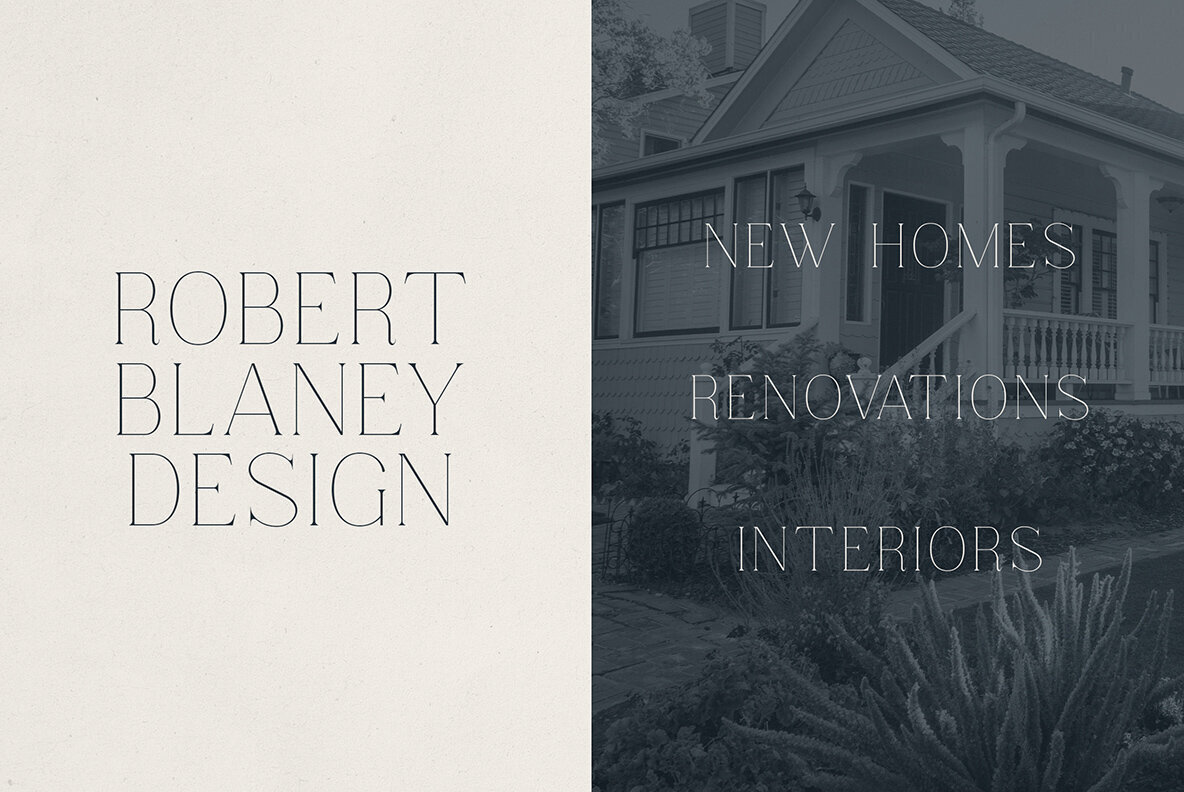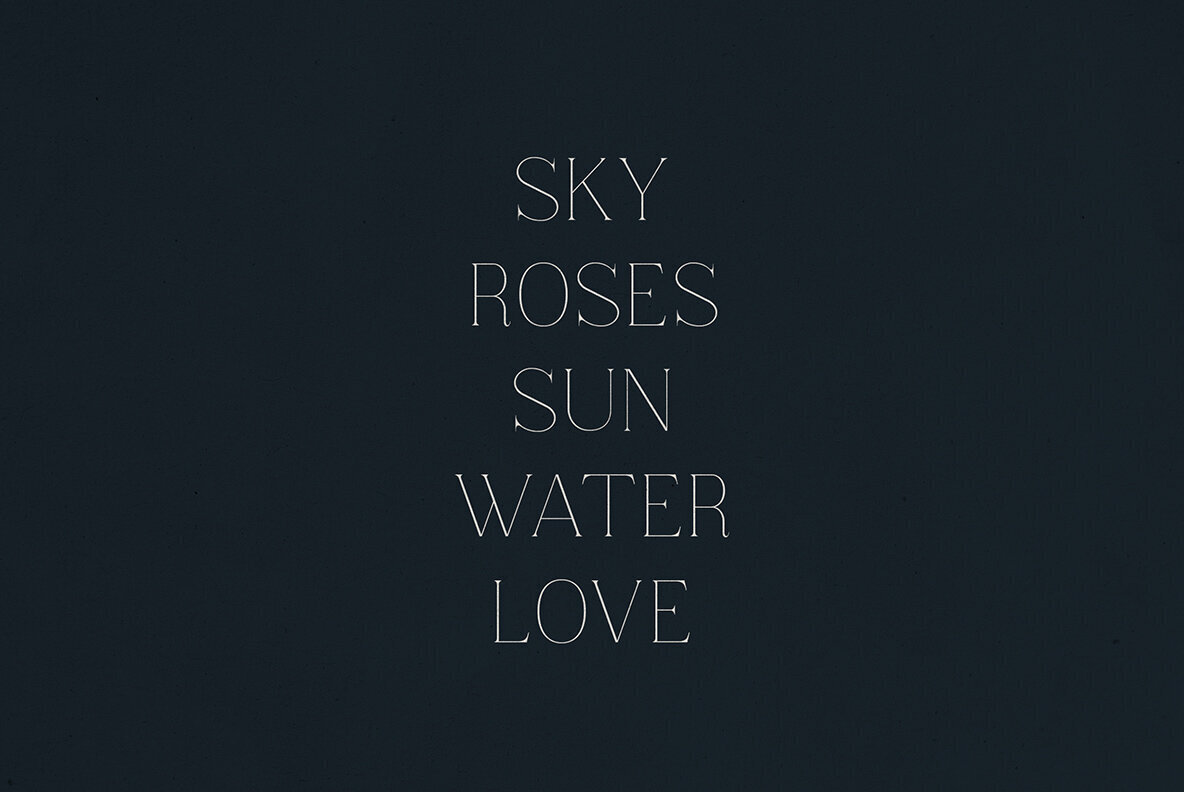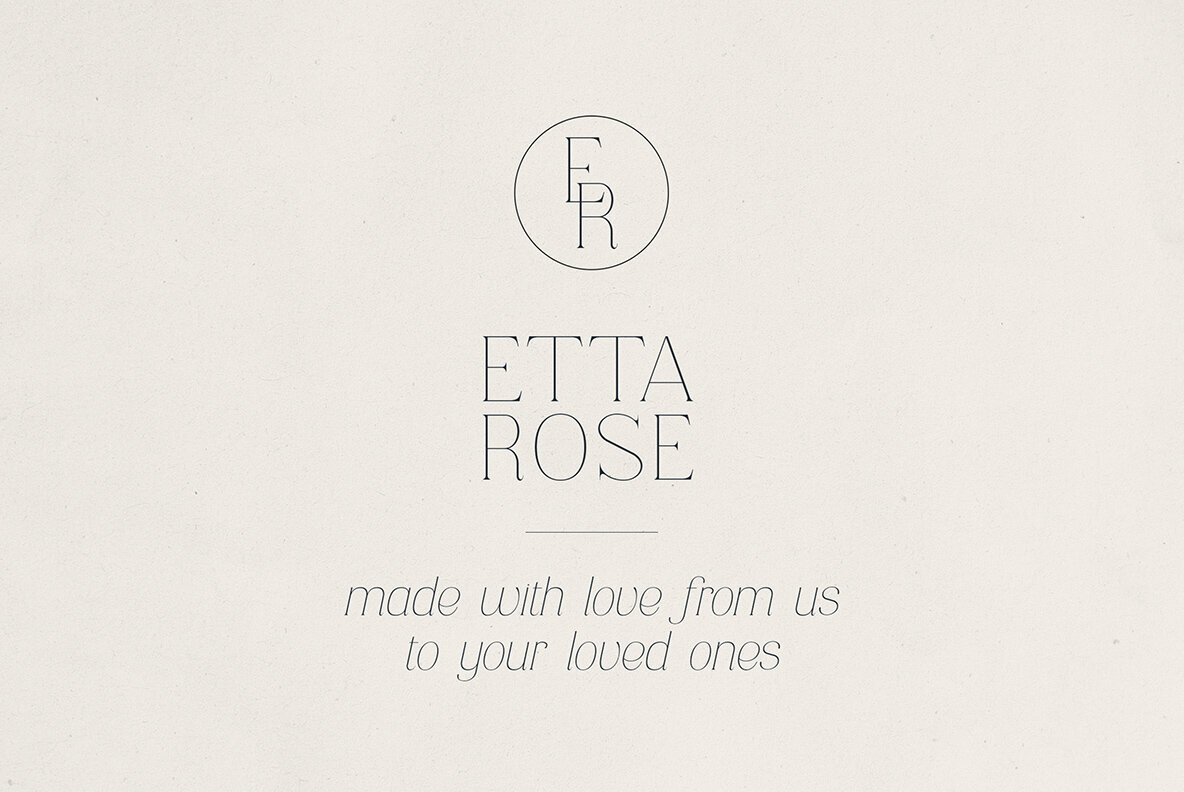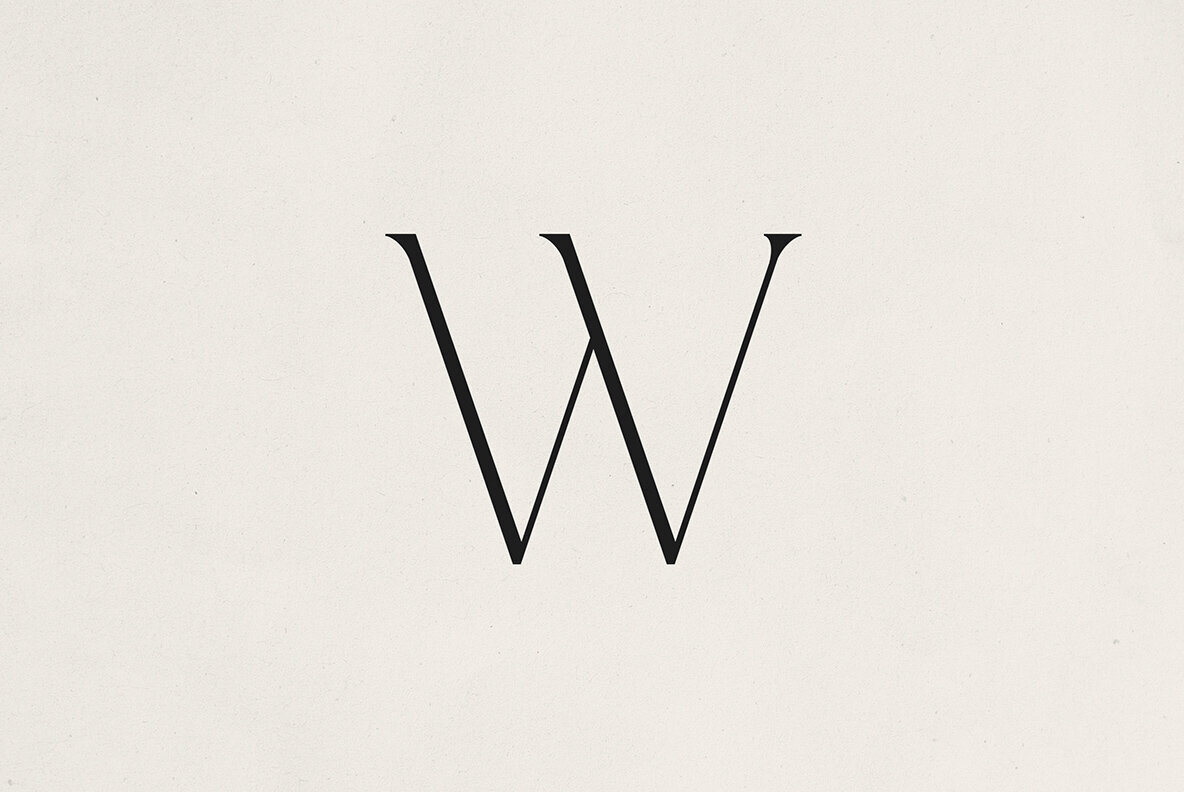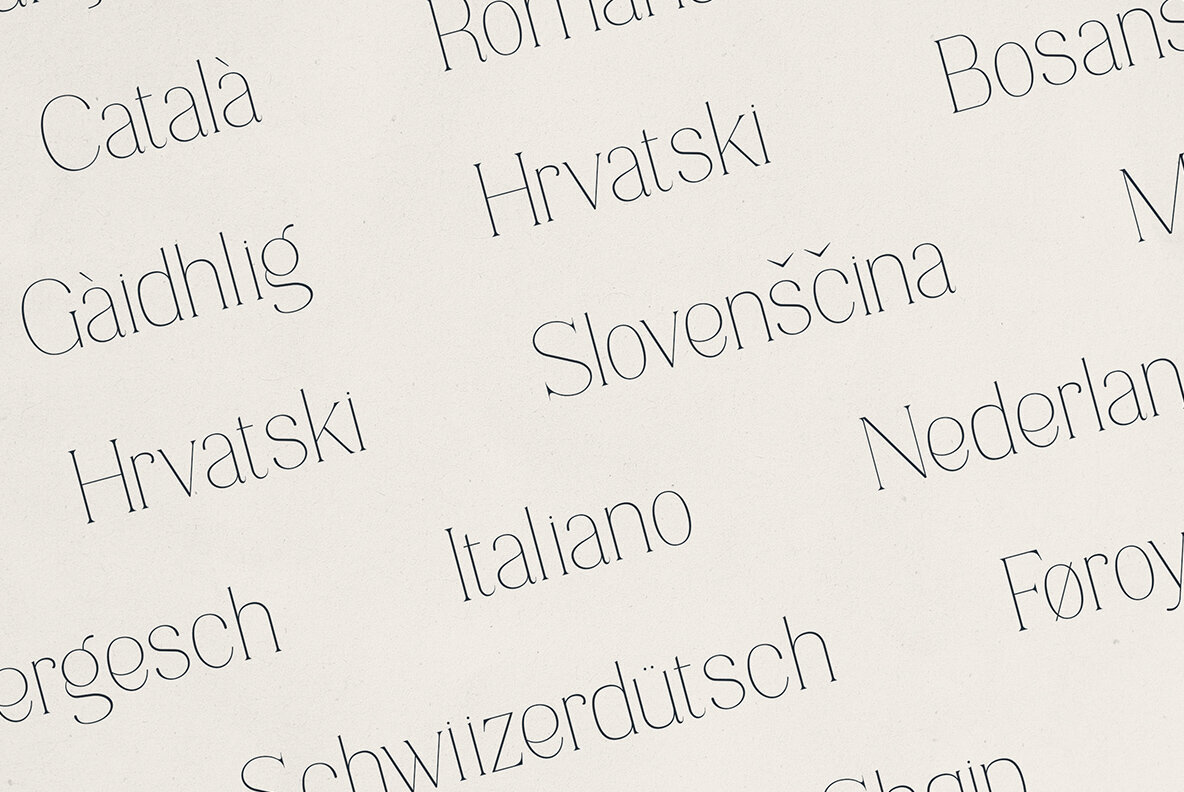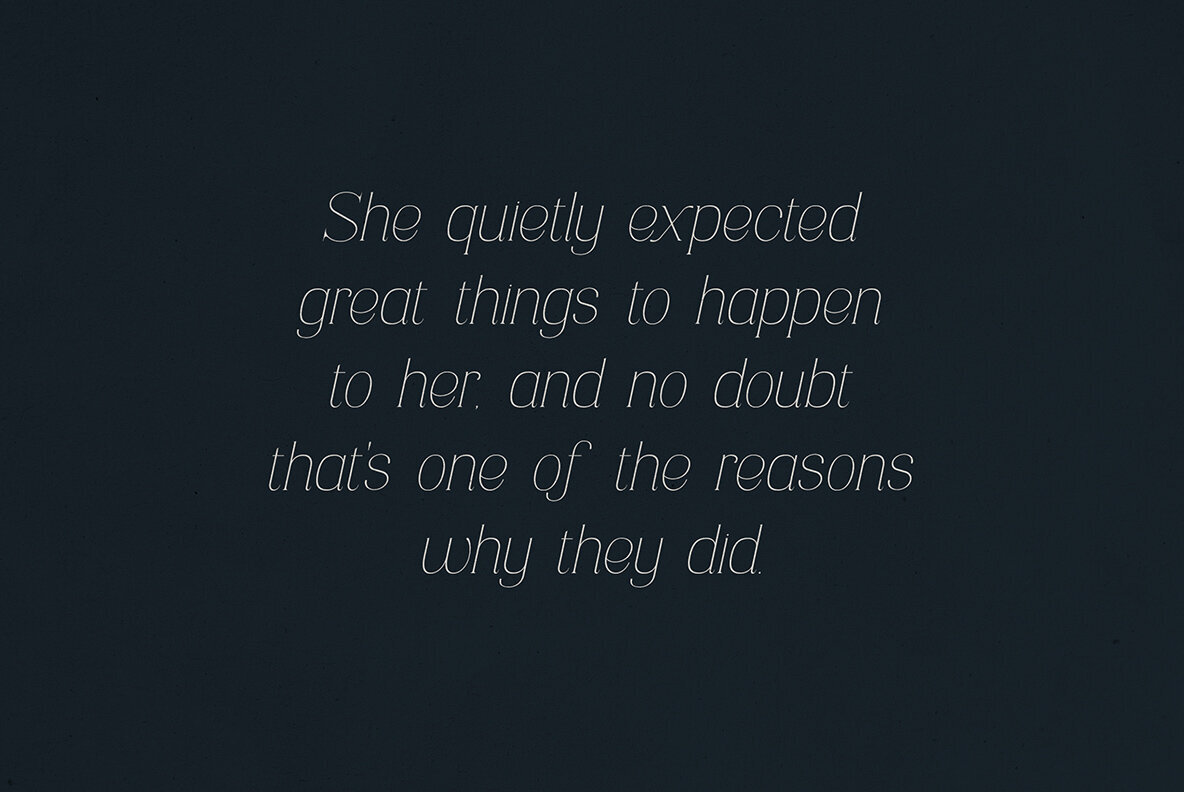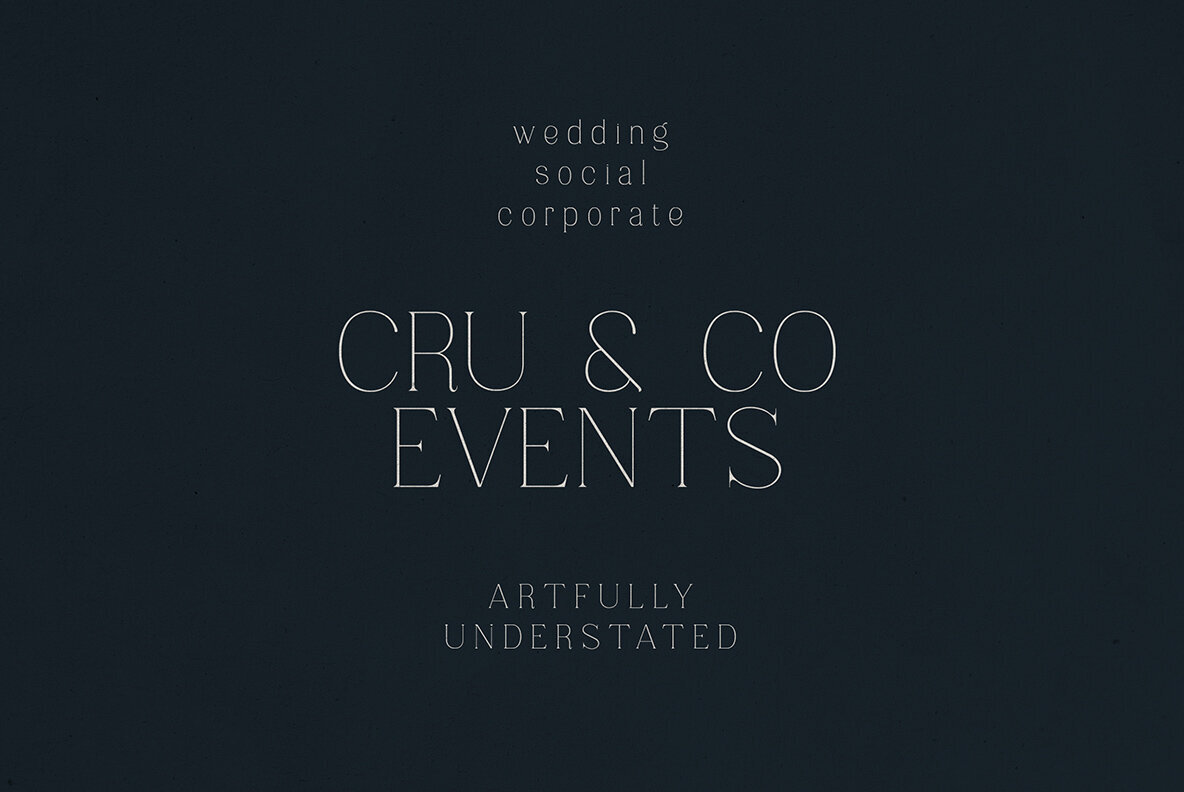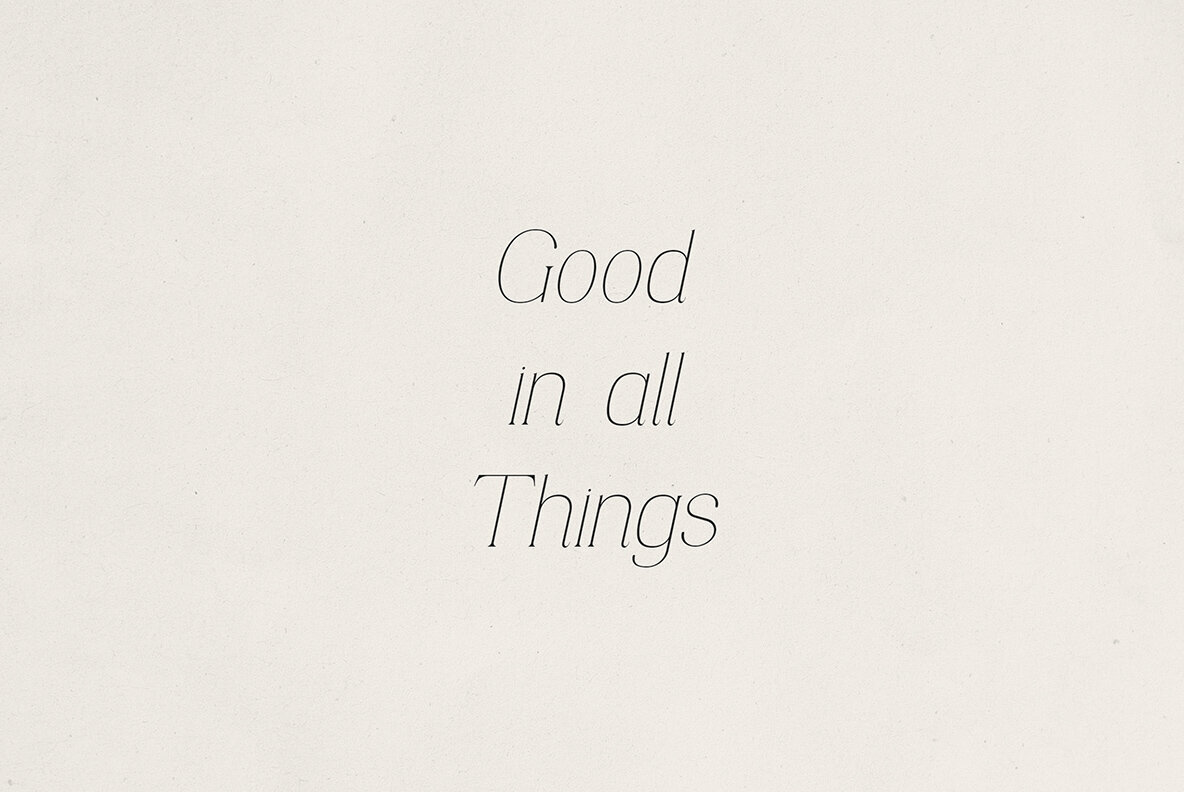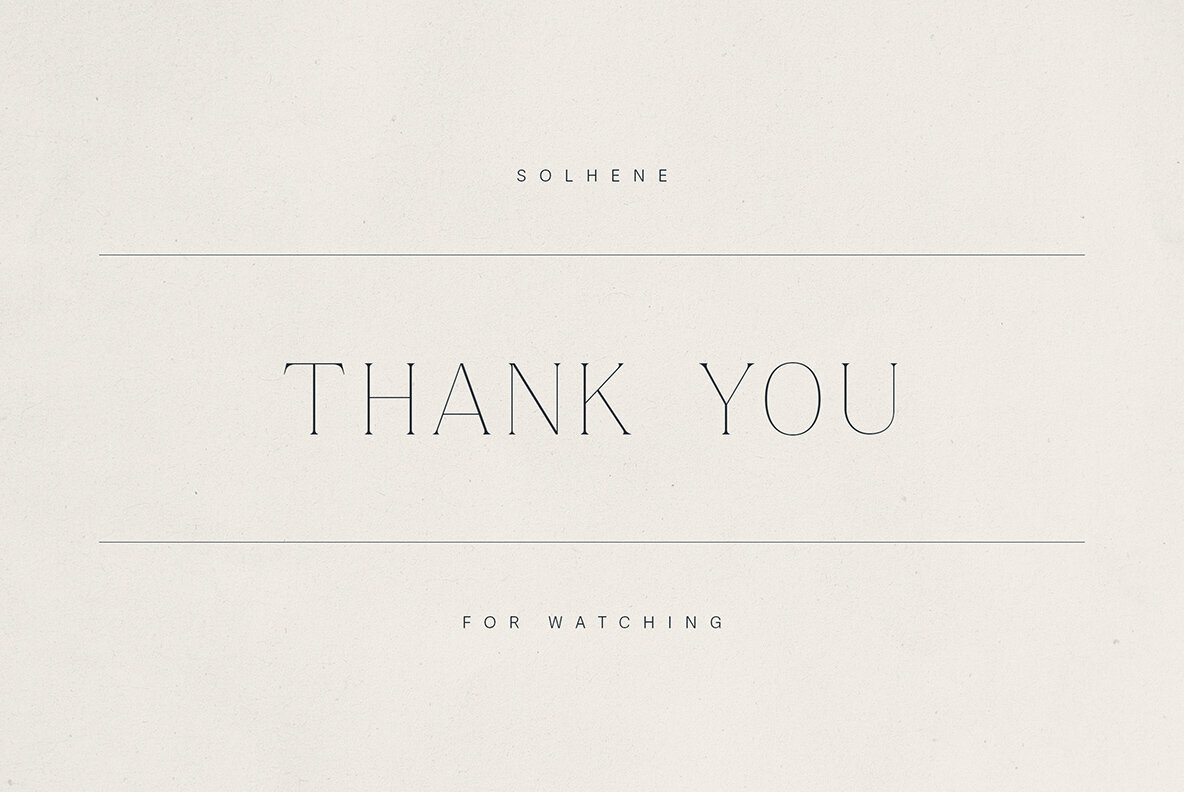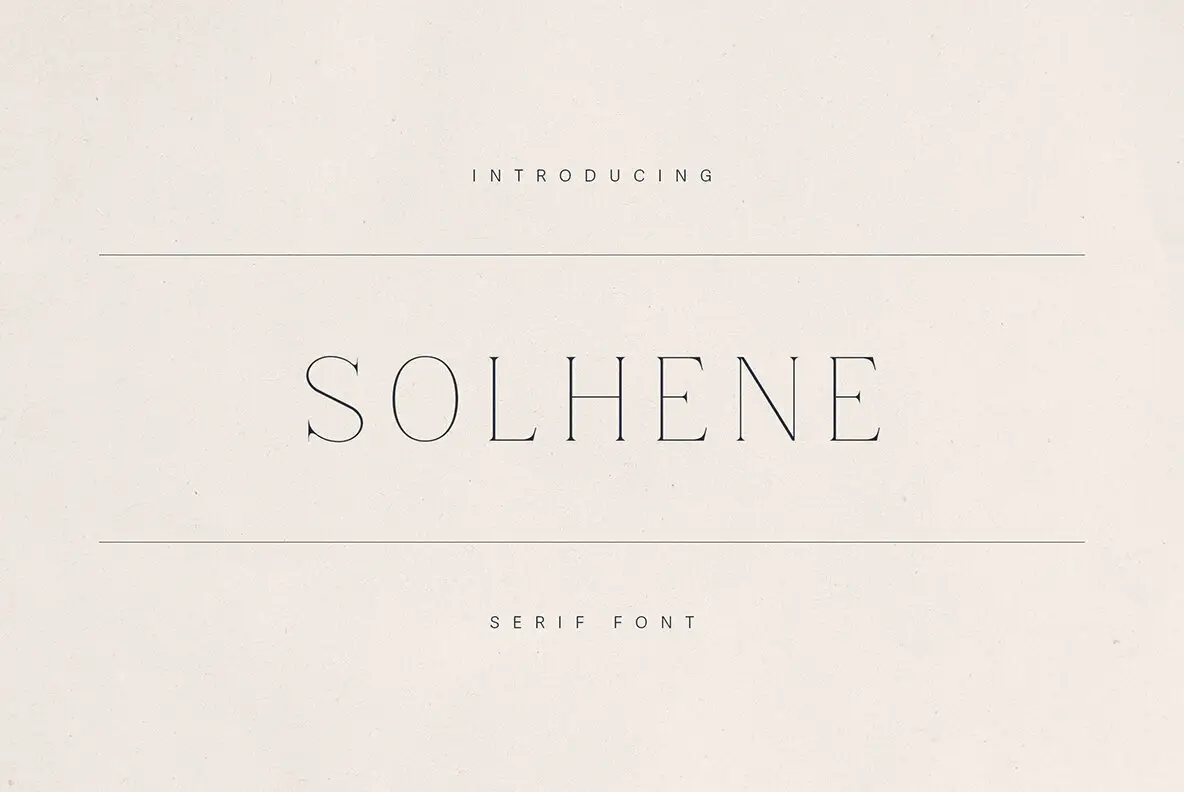
Solhene Font
Solhene Regular
Solhene Italic
Experience the timeless appeal of Solhene, a refined serif typeface that effortlessly marries classic elegance with contemporary minimalism. Crafted with high contrast strokes, delicate curves, and sharp serifs, this typeface stands out in sophistication and readability. Its versatile design makes it an ideal choice for upscale branding, luxurious packaging, magazine headlines, and sophisticated interiors. Creative professionals will find Solhene indispensable when aiming for understated beauty and precision in their work. Solhene is adaptable and supports over 80 languages, offering a full set of uppercase and lowercase letters, numerals, punctuation, and multilingual glyphs. It includes a soft italic companion that adds a graceful touch to quotes, taglines, and body copy. Whether you're working on wedding invitations, boutique branding, or editorial layouts, Solhene delivers a subtle yet striking voice to your typography.Solhene: Sophisticated Modern Serif Typeface